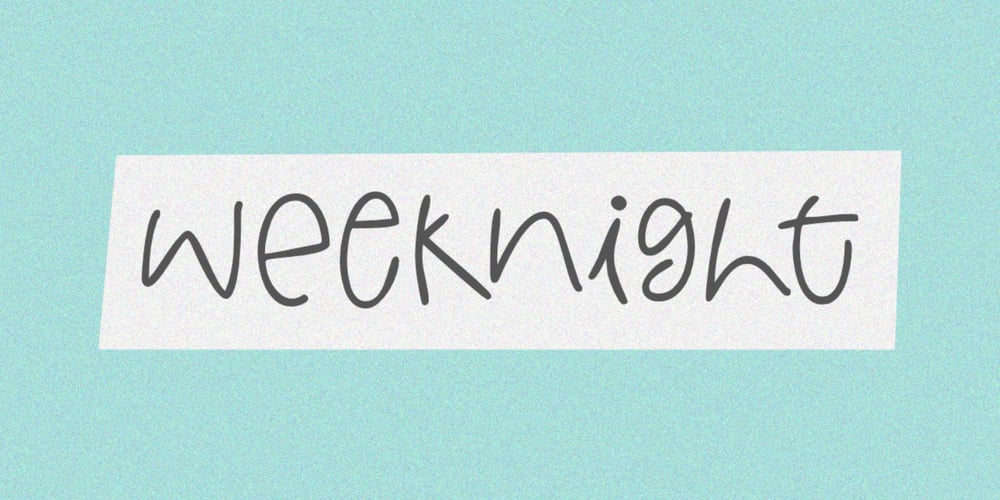
Weeknight Font Family was designed by Aldy Sidik and published by Epiclinez. Weeknight contains 1 styles and family package options. Weeknight is a cute and quirky handwritten font. It’s simple and friendly style makes this design incredibly versatile, fitting a wide variety of creative ideas.